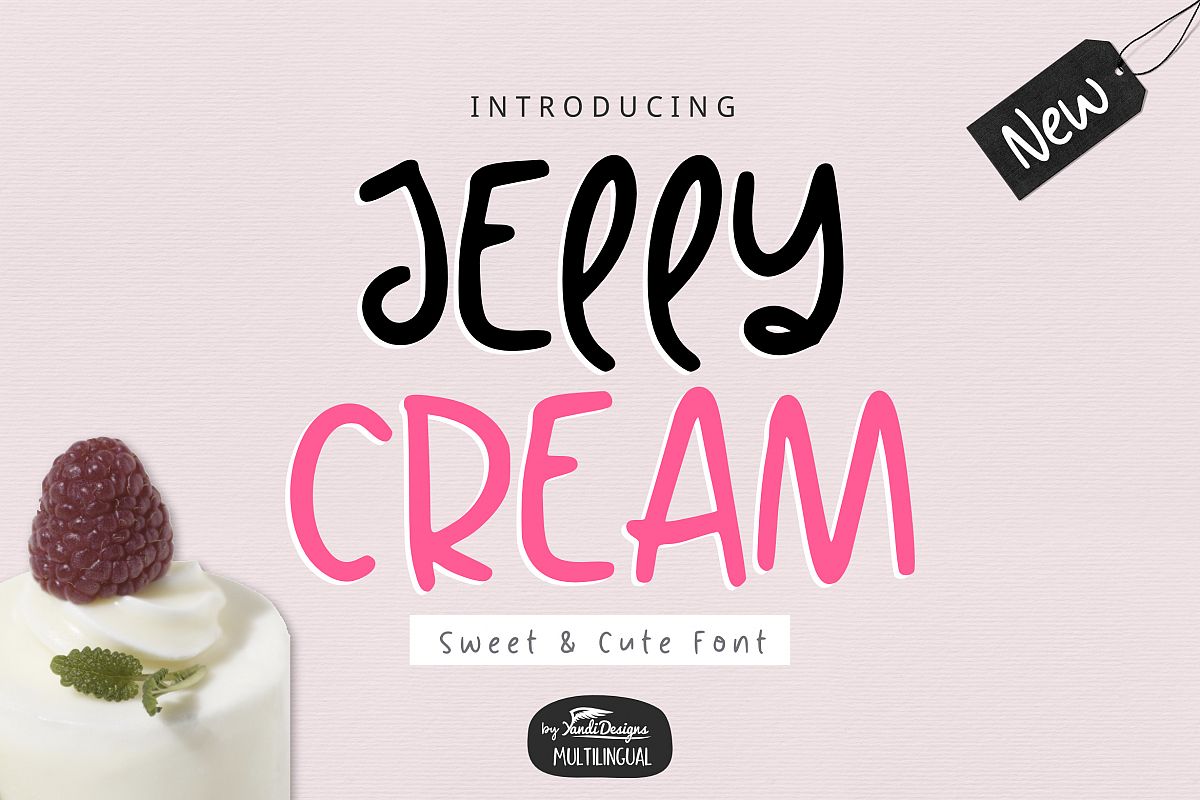
Jelly Cream Sweet Font
Jelly Cream Regular
Jelly Cream Font
Sweet and cute handwritten font , suitable for many project, signature , quotes, logo , doodle, heading , title etc.
Basic Latin + Multilingual
Support : Minimal English , French, Spanish, Germany, Italian, Indonesian and Malay.